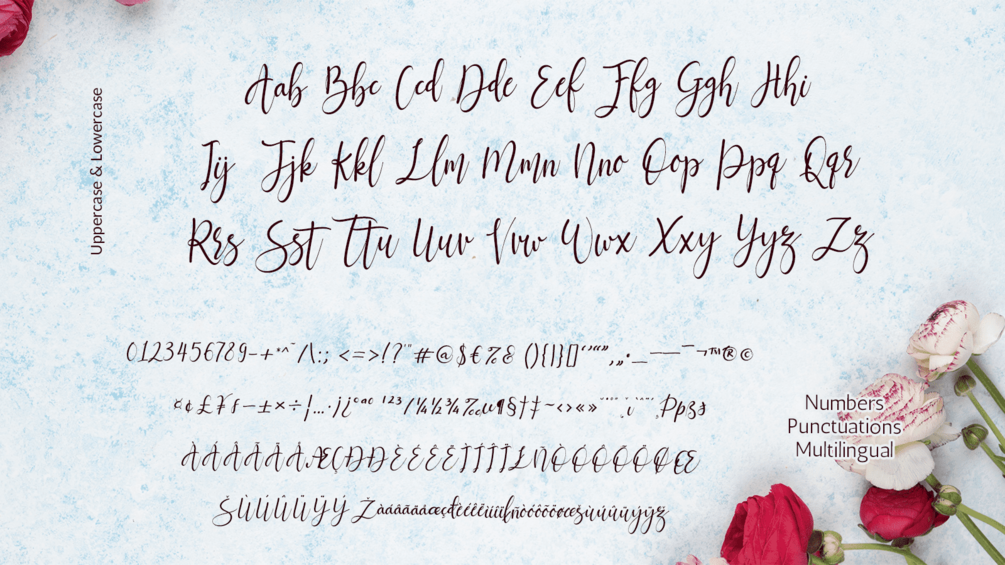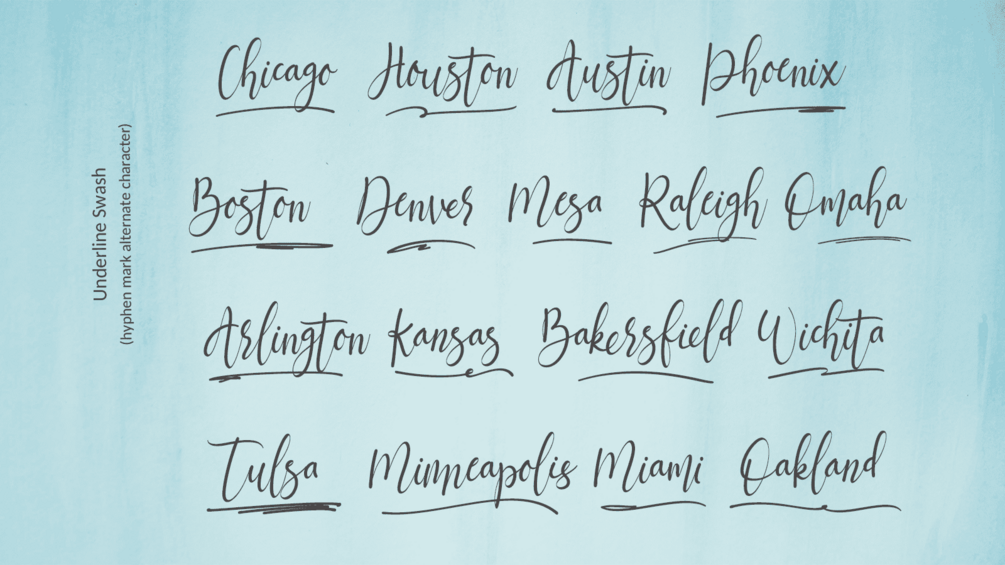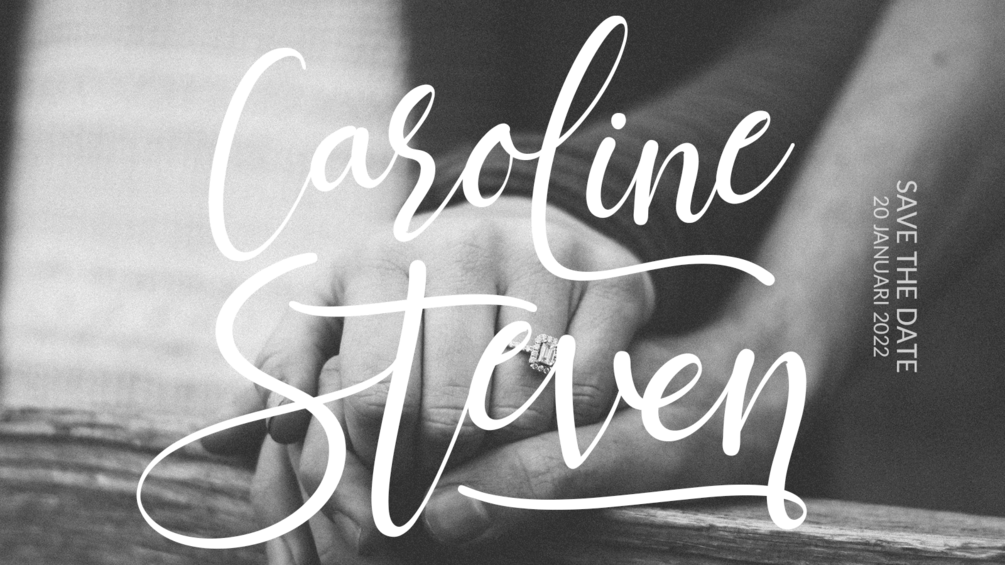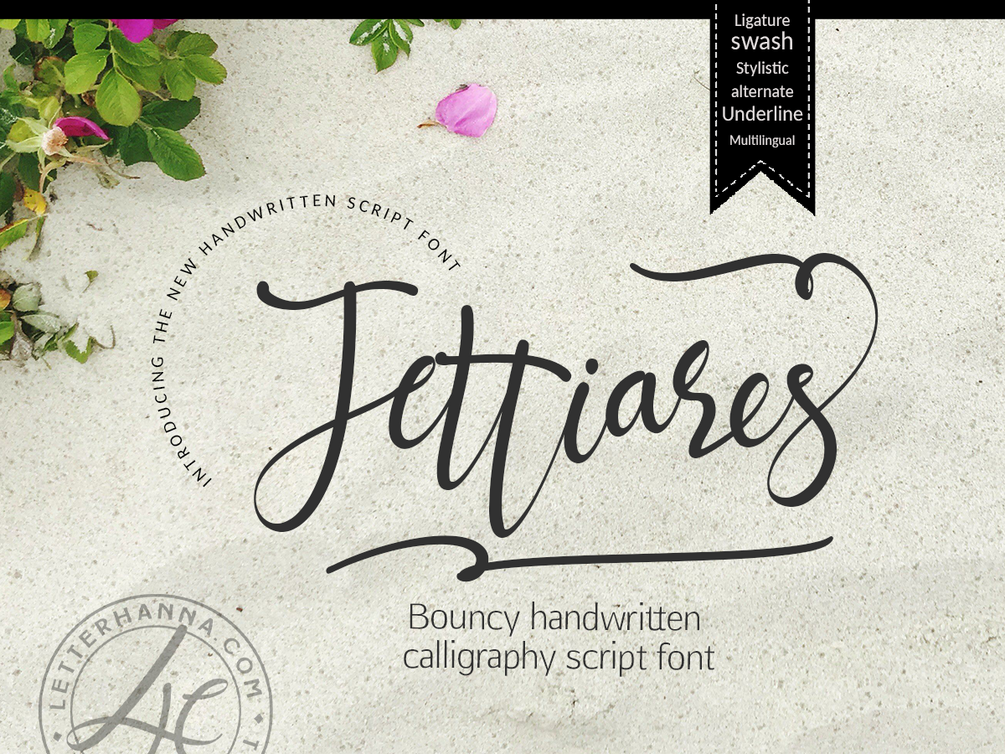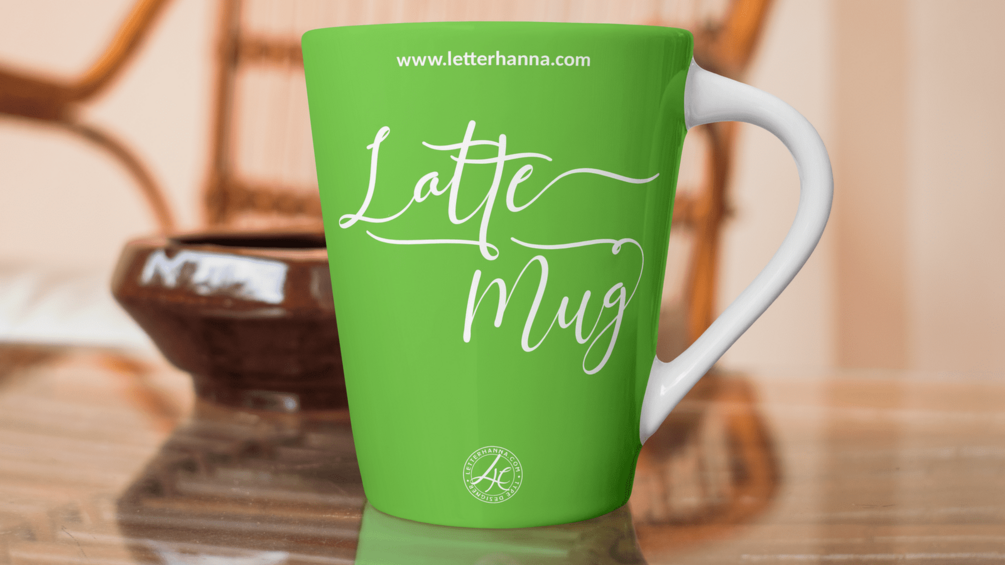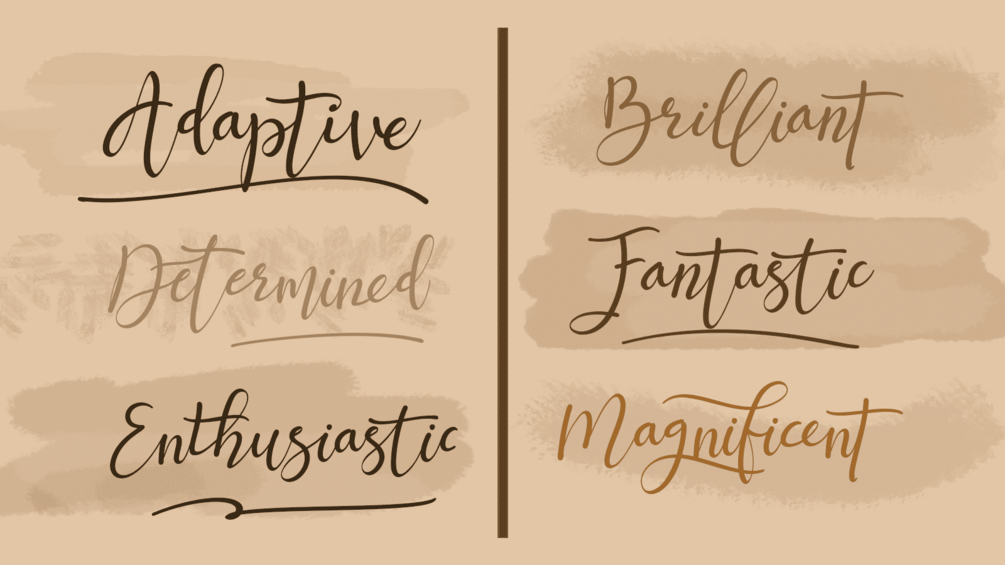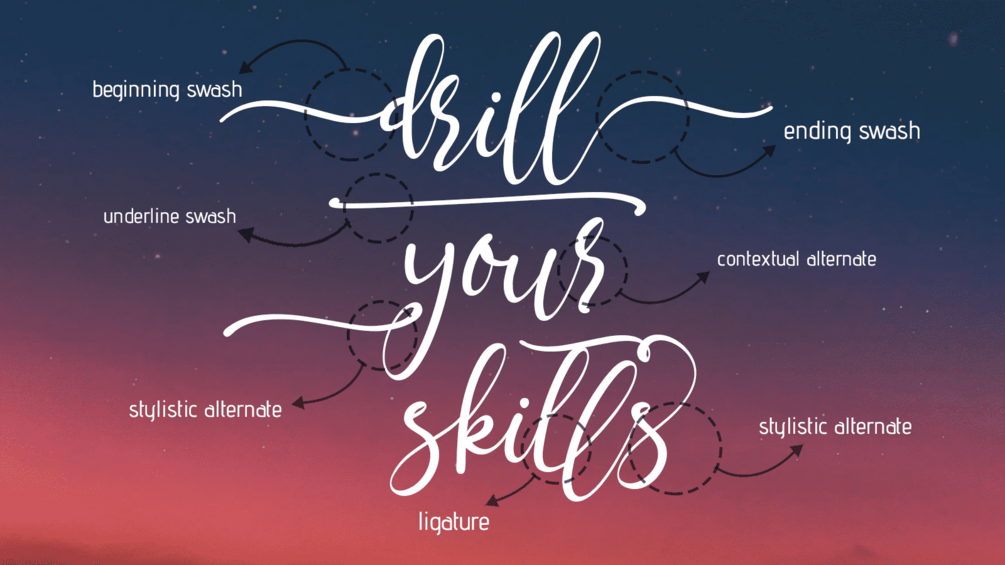
Jettiares Script Free Font
Jettiares is a bouncy handwritten calligraphy font, that comes with beautiful ligatures and lovely alternates. Jettiares has a very beautiful stroke and it will suit various logo design, poster, book cover, wedding invitations, fashion cards, and more. This font is PUA encoded which means you can access all of the glyphs and swashes with ease!
- Stylistic alternate.